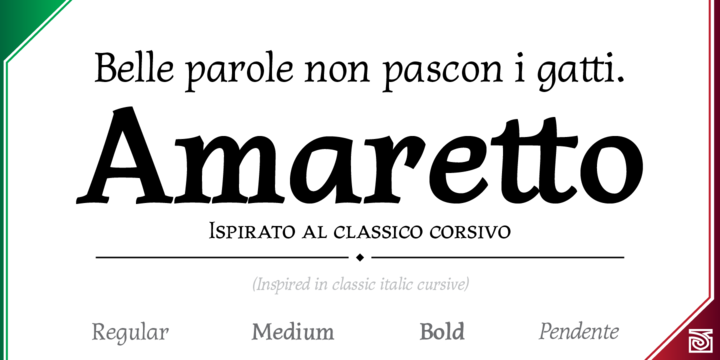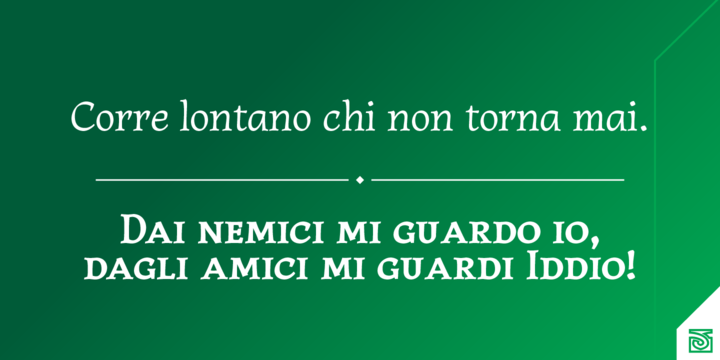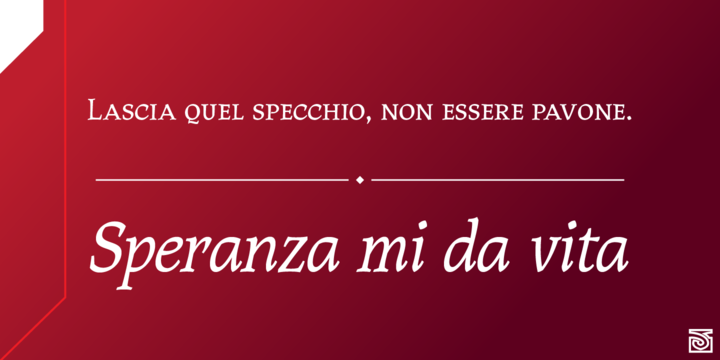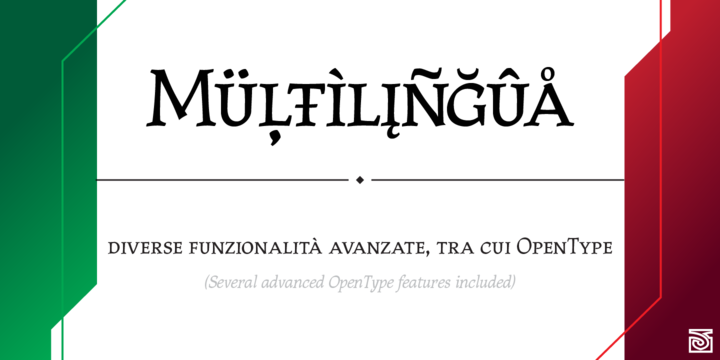
AMARETTO, inspired by classic structure of italics, as an original variation of vertical style.
Ludovico Arrighi has given us the legacy of classical calligraphic structures that times later lays the foundations of Cancelleresca style and then, the italics as extension of a classic roman serif used in the Renaissance, as main typographic way of expression in Italian printed books.
The name Amaretto reminds one of the most representative and delicious liqueur as strong distinctive Italian taste.
AMARETTO can be used mainly in titles, long and display texts. Supports East Europe languages. Includes standard and discretionary ligatures, complete small caps, old style numbers, fractions, numerators and denominators and several OpenType features included.